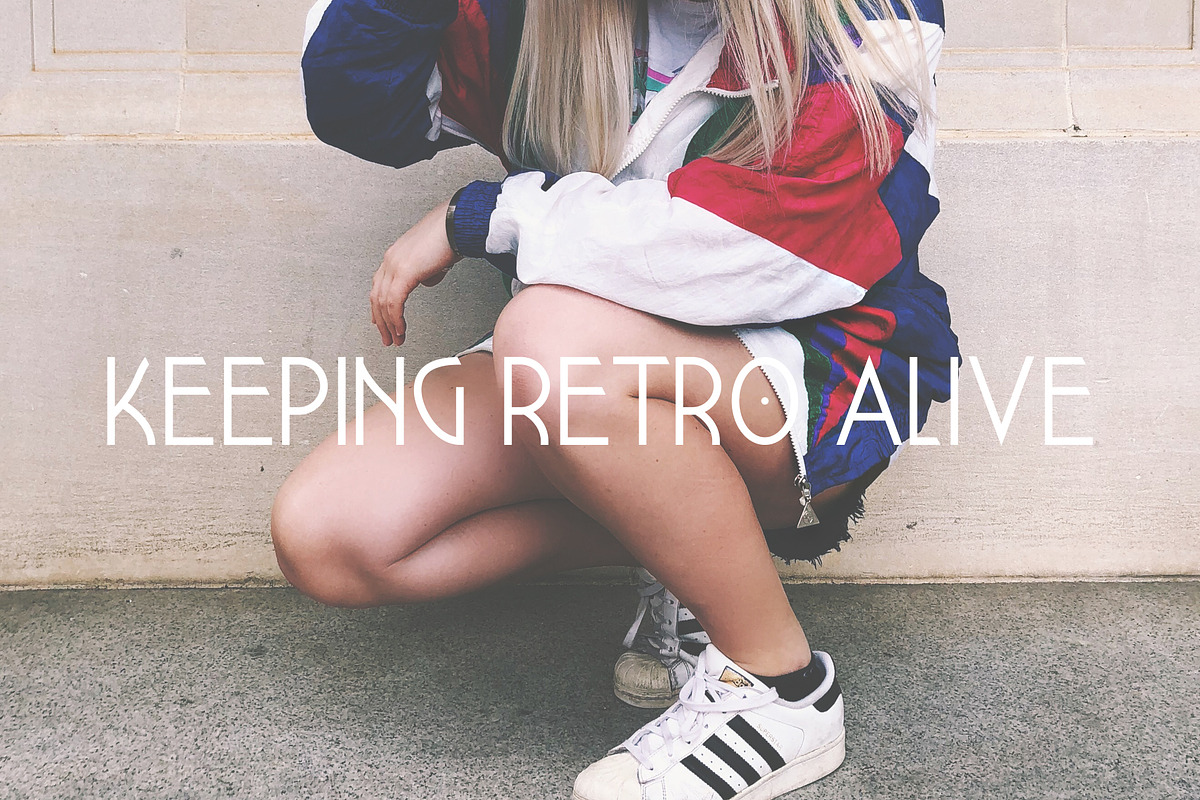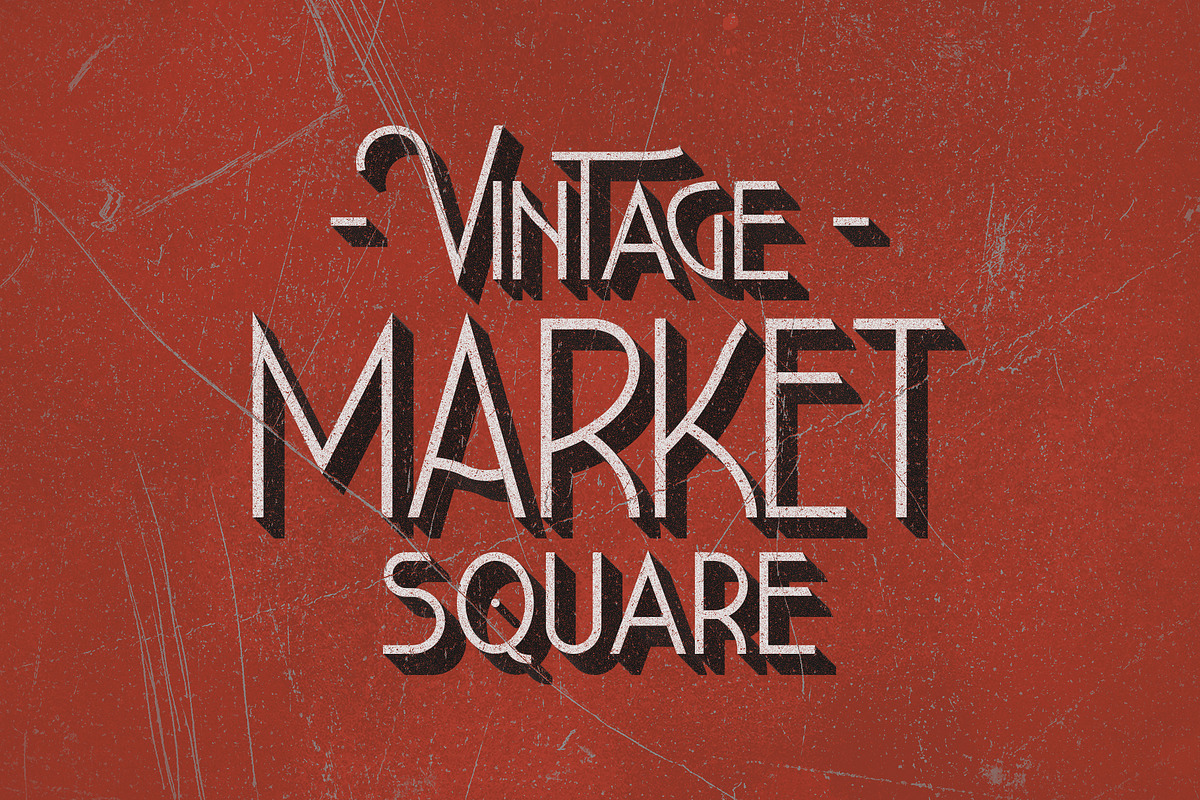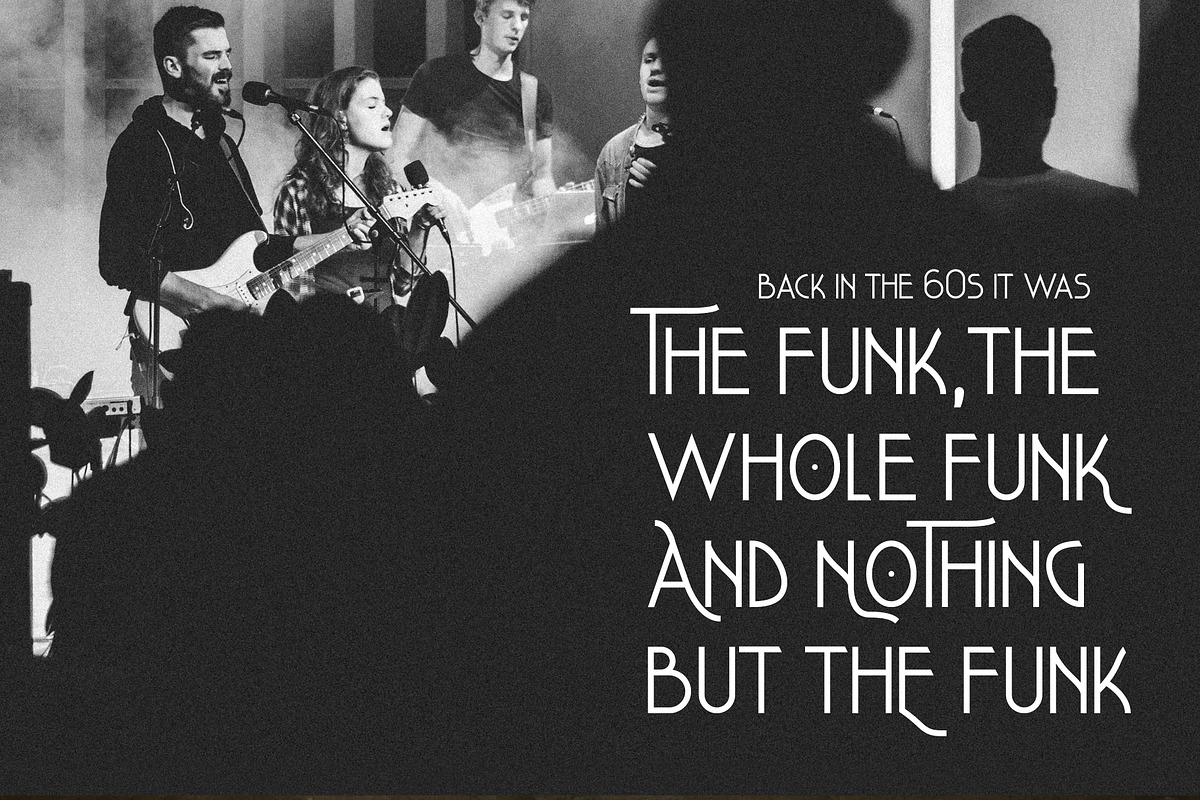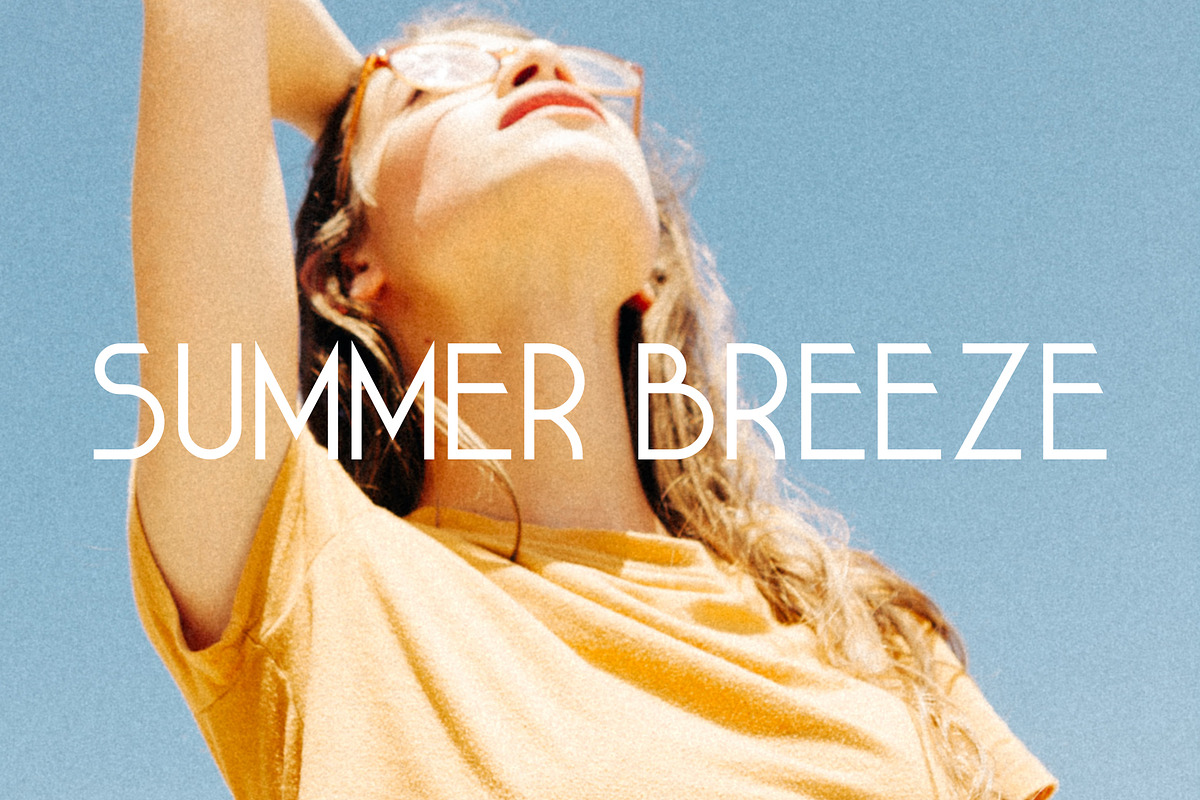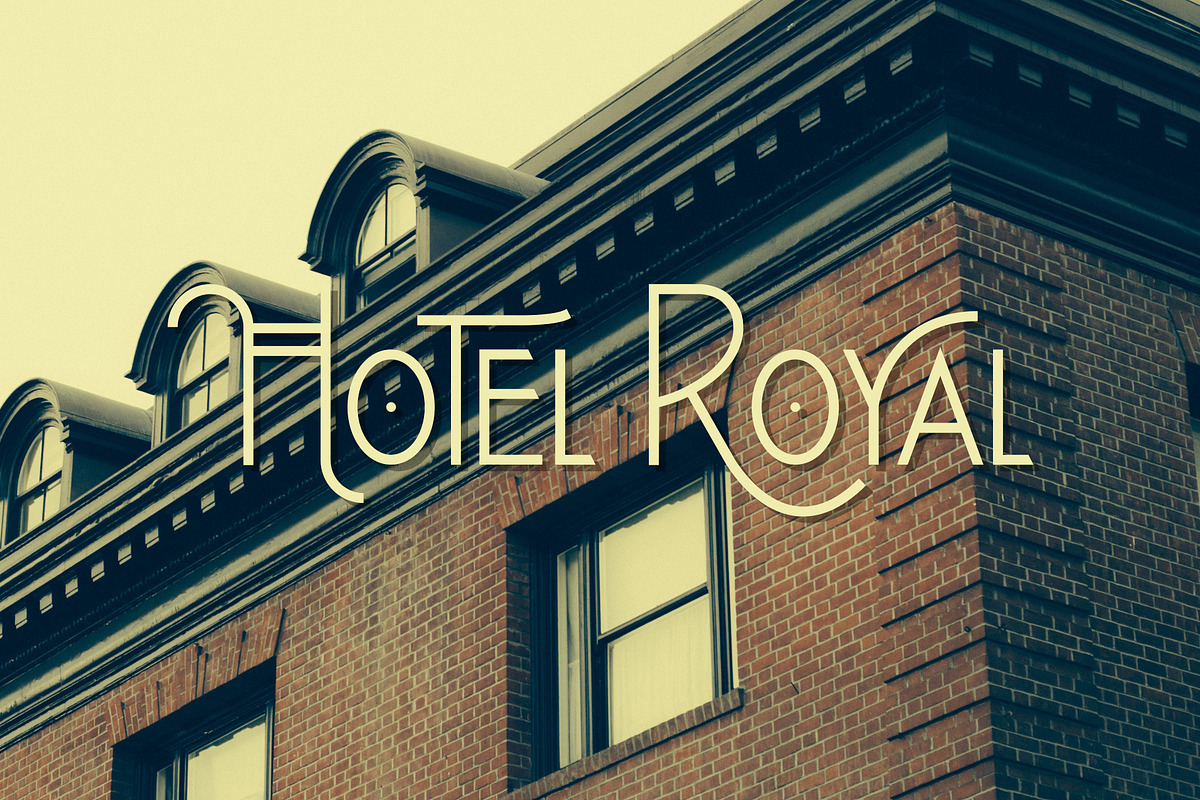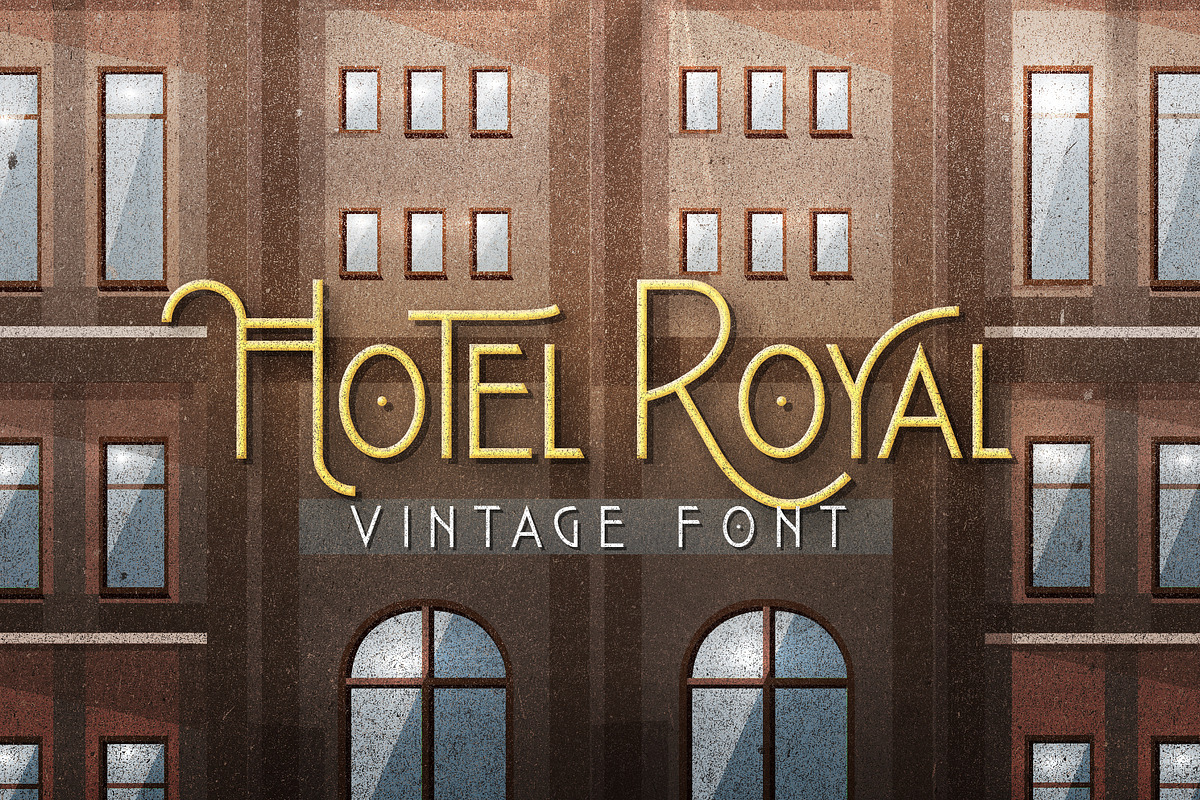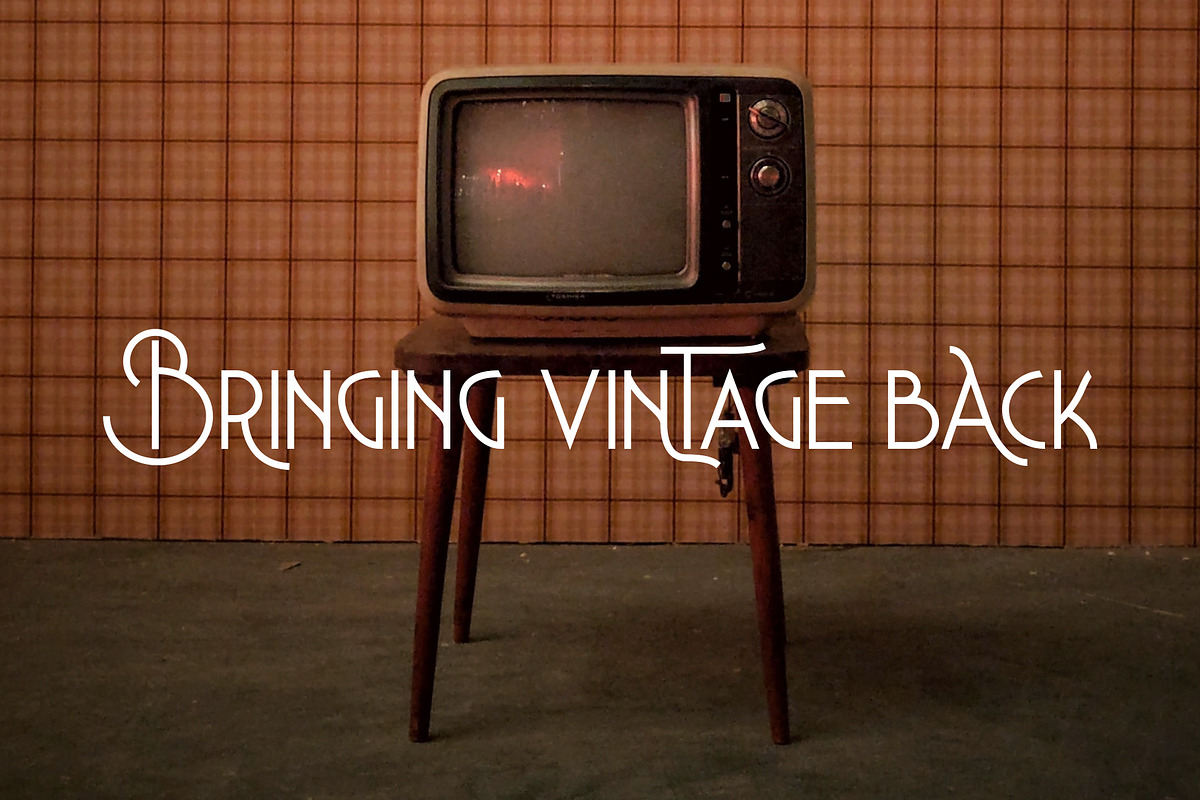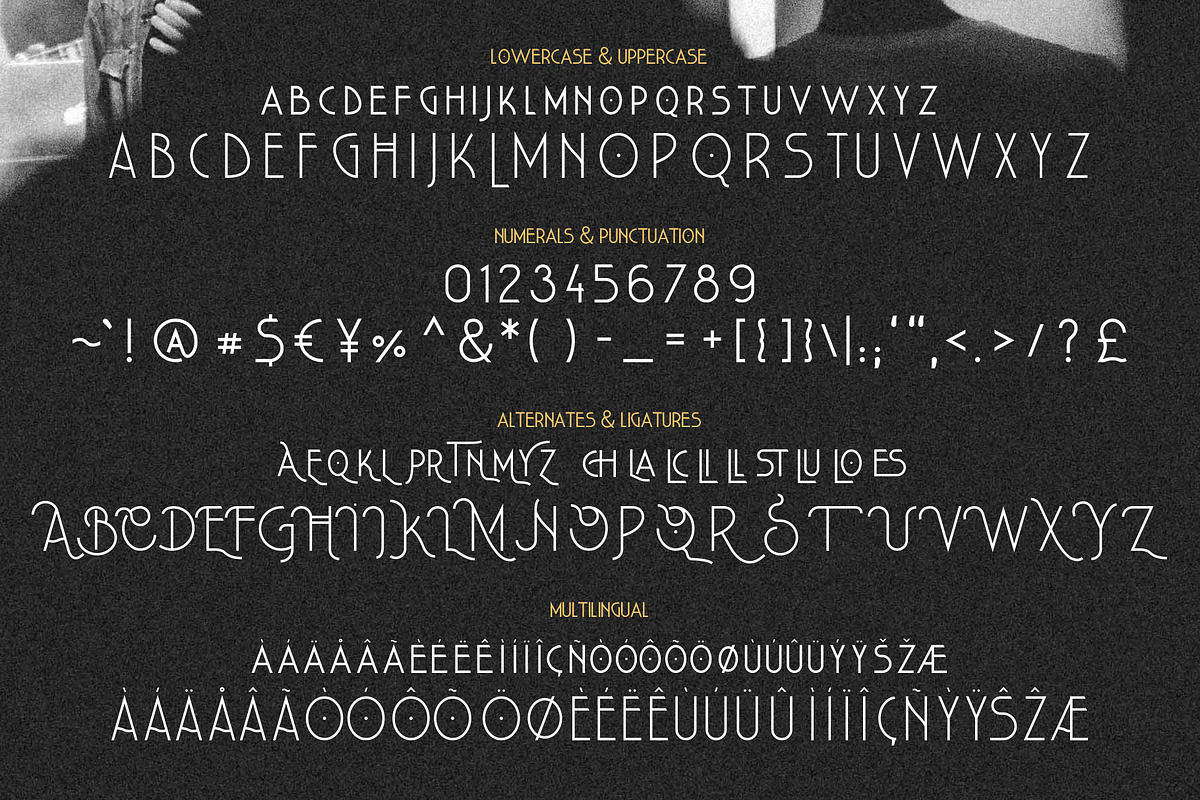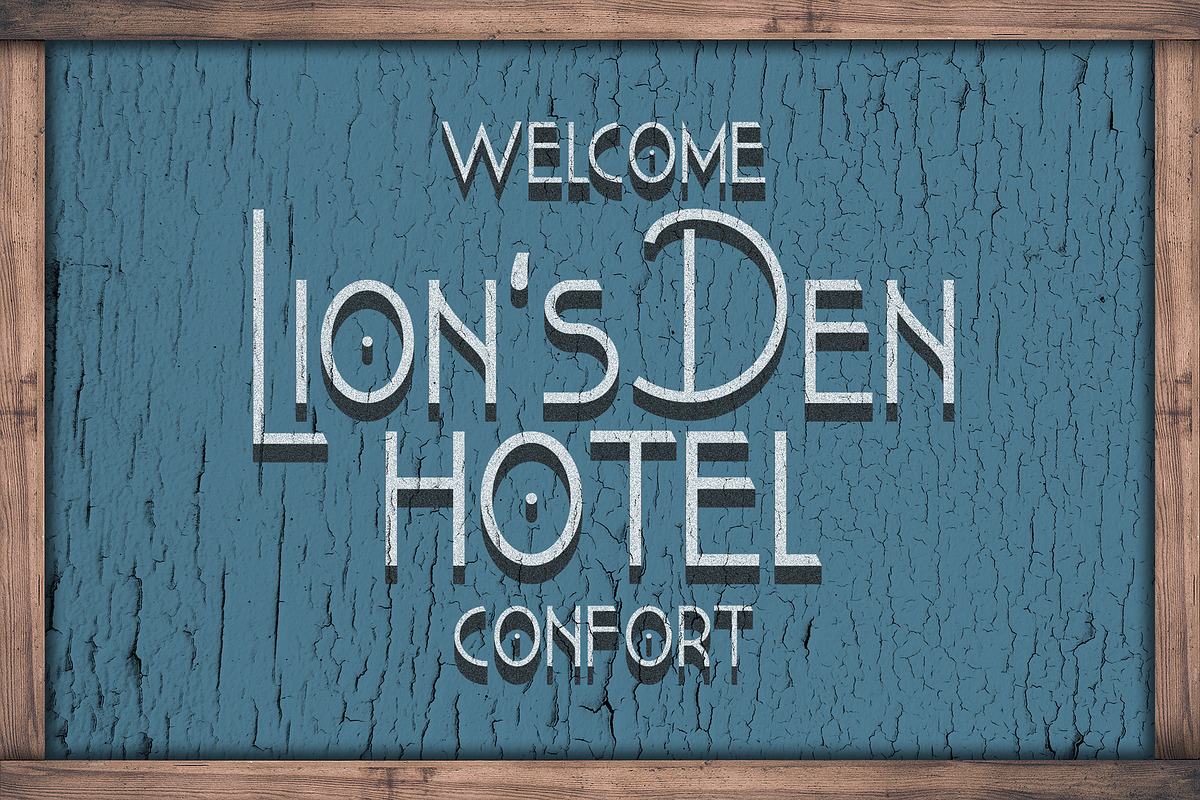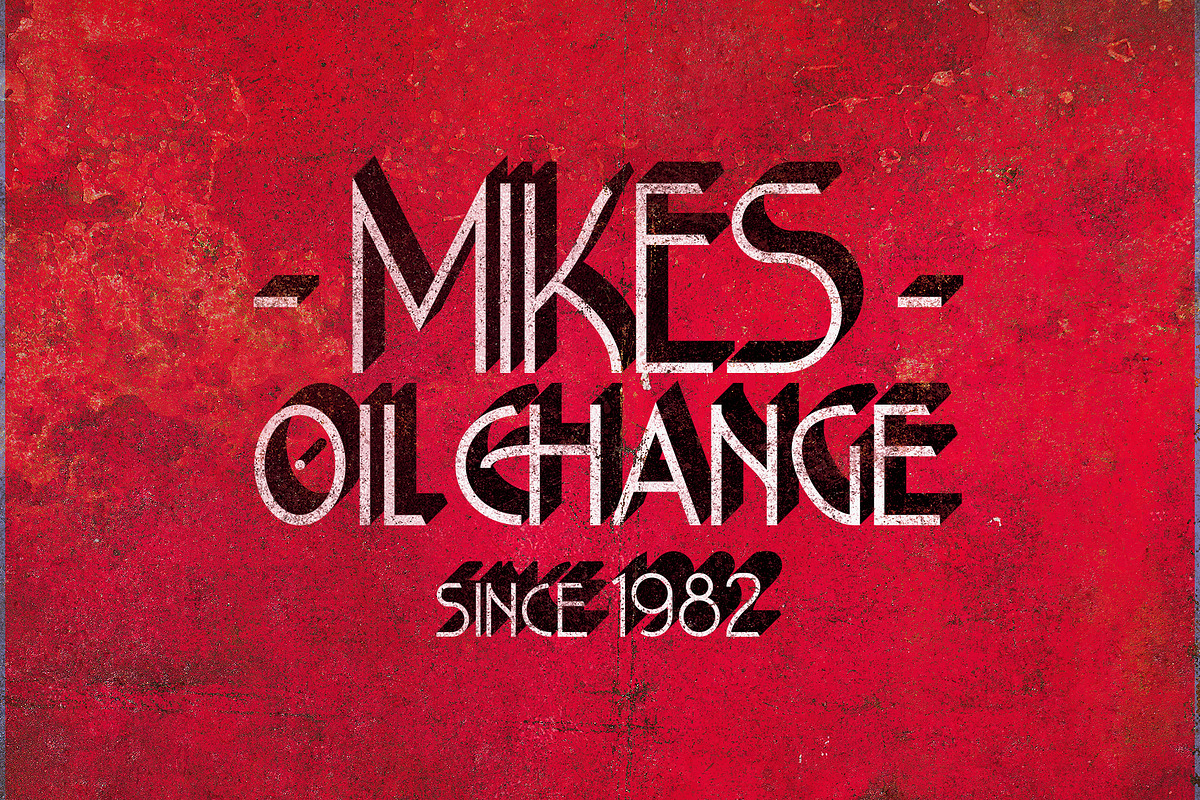
Hotel Royal Vintage Font
Hotel Royal is a vintage font inspired by the fonts used for vintage hotel labels from the first half of the 20th century. These labels where stickers placed on luggage by hotels for advertising purposes.
- Numerals and punctuation
- Alternates and ligatures